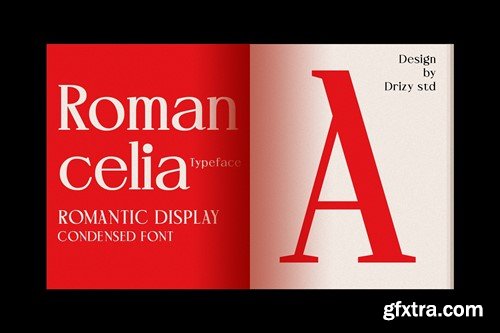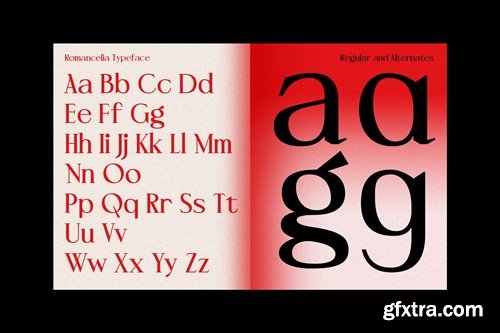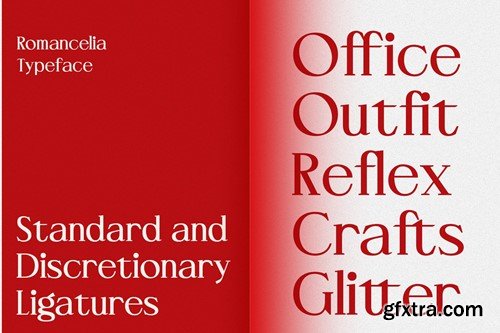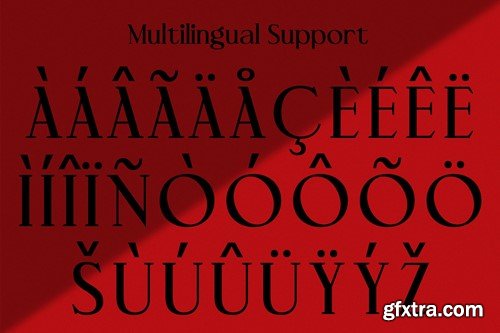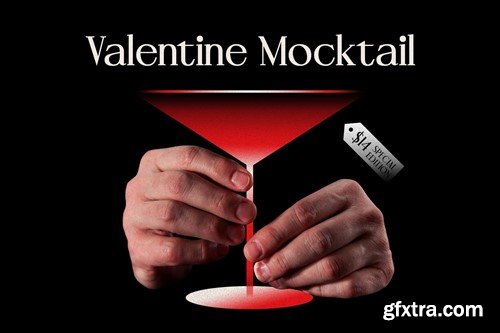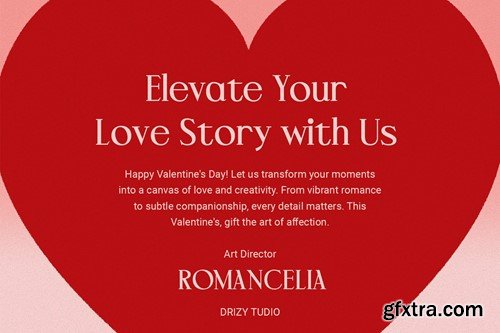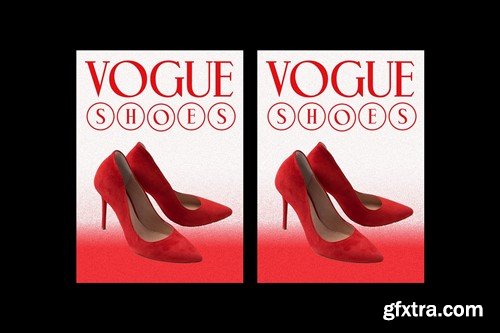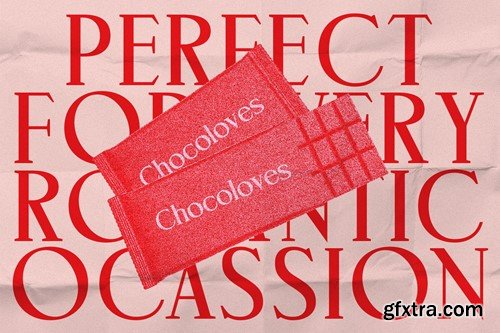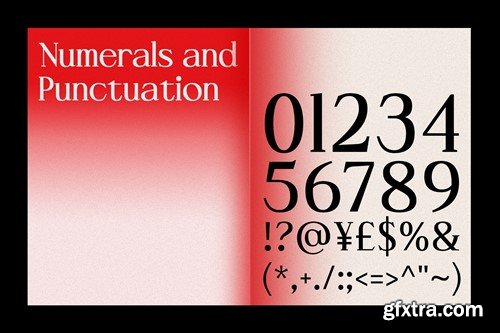
浪漫绮丽 - 爱情展示 condensed 字体 7G3S5J4
Romancelia - Romantic Display Condensed Font
Romancelia - Romantic Display Condensed Font Introducing Romancelia - a stunning display condensed font designed to bring an air of romance and elegance to your projects. Romancelia Romantic Condensed Font is an exquisite typeface that effortlessly captures the essence of romance and elegance. This condensed font is meticulously crafted to convey a sense of intimacy and sophistication, making it an ideal choice for projects that require a touch of love and charm. Romancelia features: Uppercase & Lowercase Punctuation & Numbers Multilingual Support Alternates Ligatures File Included: OTF & TTF Elevate and explore the design possibilities with this Romantic Font!